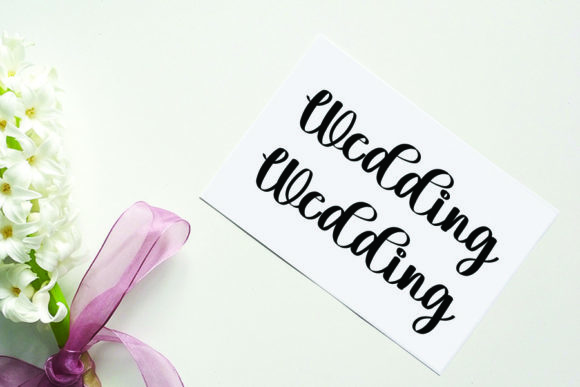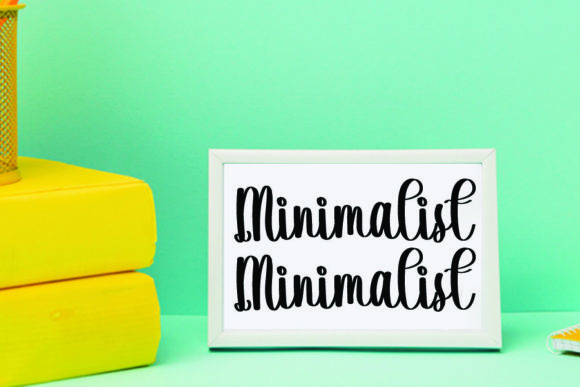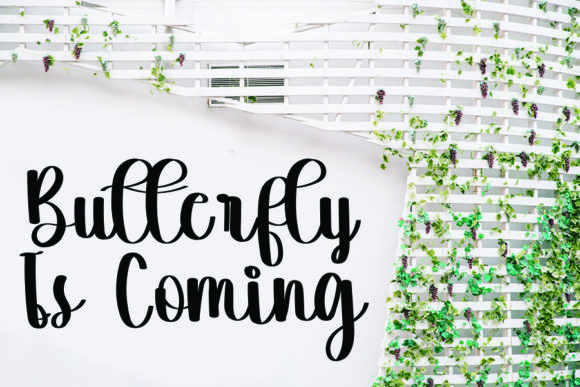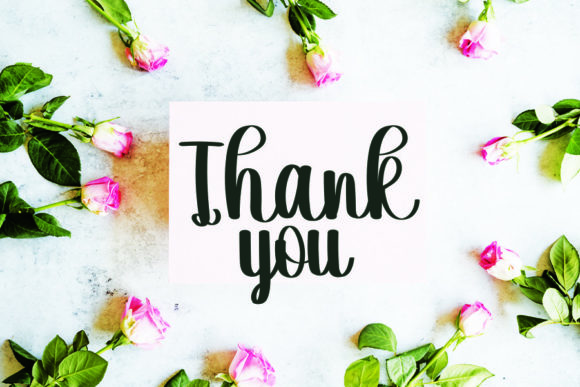
The Perfect Touch of Elegance: Unveiling the Butterfly Font
As a designer, have you ever stared at a blank page, searching for the perfect font to bring your vision to life? You know, that moment when everything clicks, and the right typography can elevate your design from ordinary to extraordinary. That’s exactly what happens when you discover the Butterfly Font – a delicate script font that whispers elegance and sophistication.
Designed with love and care, the Butterfly Font is a beautiful addition to any design project. Its purpose is to provide a refreshing look that adds a touch of class to your creations. Whether you’re working on a wedding invitation, a luxury brand’s logo, or a heartfelt greeting card, this font is sure to make your design stand out. For designers, the Butterfly Font is a valuable asset that can help create a lasting impression and convey a sense of refinement.
Key Features of Butterfly Font
- Font Style: The Butterfly Font is a beautiful, handwritten script font, ideal for adding a touch of elegance and whimsy to your designs.
- Unique Characteristics: The Butterfly Font features intricate connections, subtle flourishes, and a natural, handwritten feel, making it perfect for creative projects.
Butterfly Font Review
Overall, the Butterfly Font has a whimsical charm that catches the eye ✨. Its playful curves and delicate lines evoke a sense of innocence and wonder. I appreciate the subtle variations in letterform design that add to its unique character. The font is well-suited for applications that require a touch of elegance and sophistication, such as wedding invitations, children’s books, or art projects.
However, there are some limitations to consider ⚠️. The font may not be the best choice for body text, as it can be quite legible but not as clear at larger sizes. Additionally, the font’s distinctive style may not be suitable for all audiences, particularly those who prefer more straightforward or modern typography. In some cases, the font’s whimsy may come across as overly childish or distracting.
In terms of its use, I would recommend the Butterfly Font for decorative purposes, such as headings, titles, or short quotes. It’s a great option for adding a touch of personality to a design without overwhelming the senses. However, for longer blocks of text or more formal applications, it’s best to choose a font with a more traditional or legible design.
- Whimsical and elegant design
- Unique letterform variations
- Well-suited for decorative purposes
- May not be suitable for body text or formal applications
For best results, use the font in conjunction with colorful graphics and illustrations.
Use the font in creative projects, such as invitations, posters, and greeting cards.
Use the font to add a touch of whimsy to presentations, reports, and other documents.
Use the Butterfly Font in creative and playful projects, such as:
Invitations, party decorations, and other celebratory materials.
Children’s books, educational materials, and other youth-focused projects.
Wedding invitations, save-the-date cards, and other wedding-related materials.
Alternatives to Butterfly Font
Great Vibes is a beautiful, elegant script font perfect for adding a touch of sophistication to your designs. It features flowing lines, swashes, and elegant flourishes that make it ideal for wedding invitations, event branding, and other high-end projects.
Compared to Butterfly Font, Great Vibes is more refined and less playful. While Butterfly Font has a whimsical feel, Great Vibes is more elegant and sophisticated.